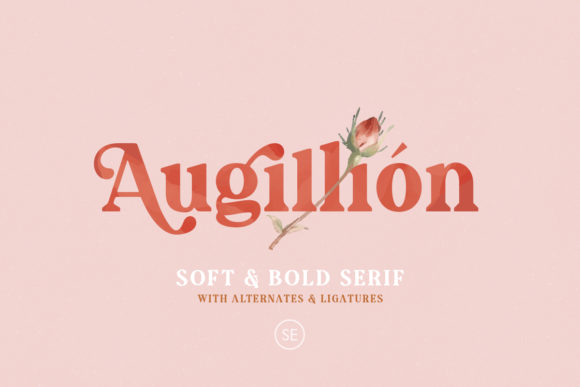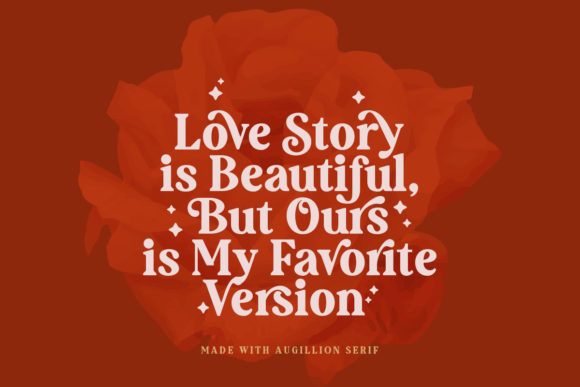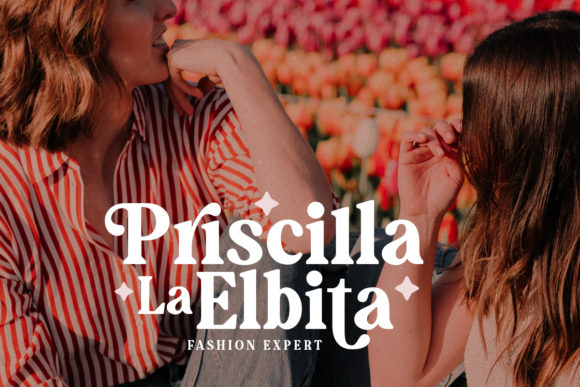
Augillion Font: Elegant Serif for Modern Logo Design & Typography
About the Augillion Font
Experience the unique personality of Augillion Font, a font designed for impact. Augillion is a modern and elegant serif font. It can easily be matched to an incredibly large set of projects, so add it to your creative ideas and notice how it makes them stand out!
Augillion’s elegant serif forms excel in headlines, logos, and short-form text such as packaging copy or invitations. Its refined character lends itself well to branding projects requiring a sophisticated and timeless feel. However, its delicate details might become less legible in extended body text or UI applications.
Consider pairing Augillion with a clean sans-serif like Open Sans for a balanced contrast, or a playful script font like Pacifico for a more whimsical feel, depending on the desired project mood. Geometric sans-serifs would also complement its structured elegance.
Augillion projects an air of understated sophistication and modern elegance, making it ideal for brands aiming for a premium or luxurious image. Avoid using it where high readability over long stretches of text is paramount.